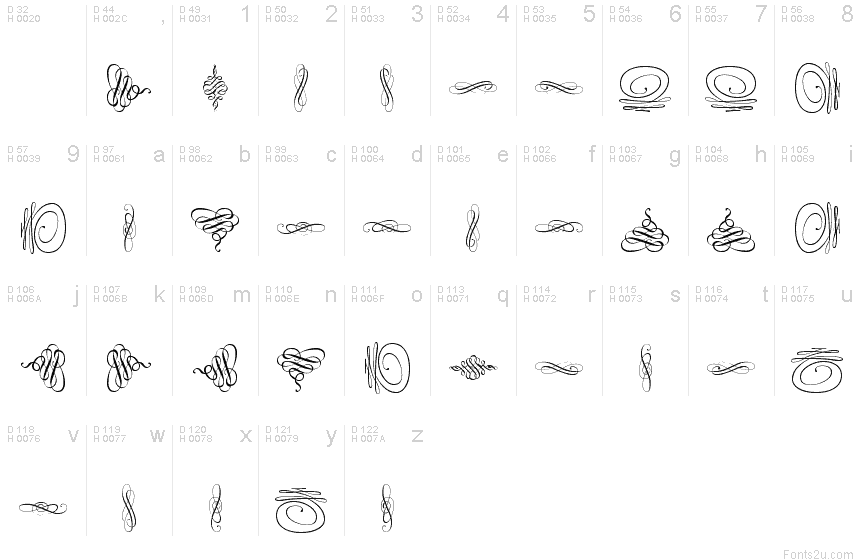
CiviliteTails from Richard Beatty Designs is a free flourished calligraphy font. Its letters are built from sweeping oval loops, needle-thin rises, and tight curls, with long flourishes extending far beyond the main forms as several curves double back over themselves.
It can turn a wedding invitation or boutique wordmark into an ornamental penwork feature, with the oversized loops becoming part of the decoration rather than sitting apart from it. Certificates, luxury packaging, and formal event graphics also suit the design because its fine lines and broad scrolls recall engraved stationery and ceremonial signatures.